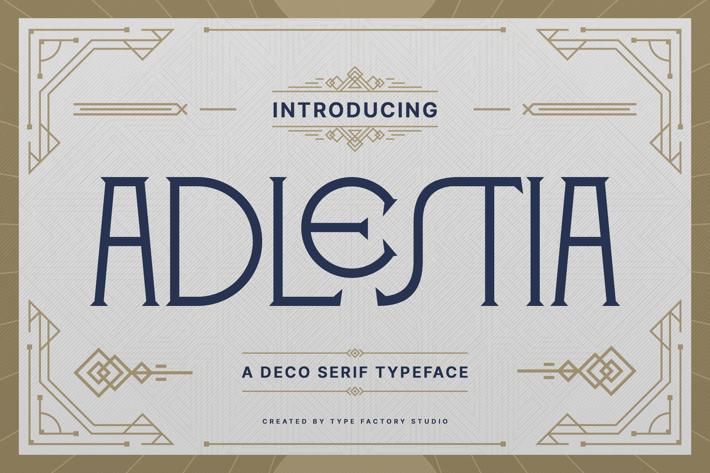
Adlestia - Deco Serif Typeface
Adlestia is a sophisticated deco serif typeface that blends vintage elegance with a contemporary edge. Inspired by Art Deco design, its refined letterforms and structured lines bring a timeless charm to any project. Perfect for luxury branding, editorial layouts, and event invitations, Adlestia evokes a sense of glamor and style. This versatile typeface is suitable for both print and digital applications, effortlessly elevating your work with its unique character. Whether crafting fashion materials, classy logos, or stylish posters, Adlestia adds a touch of 1920s-inspired allure that stands out.